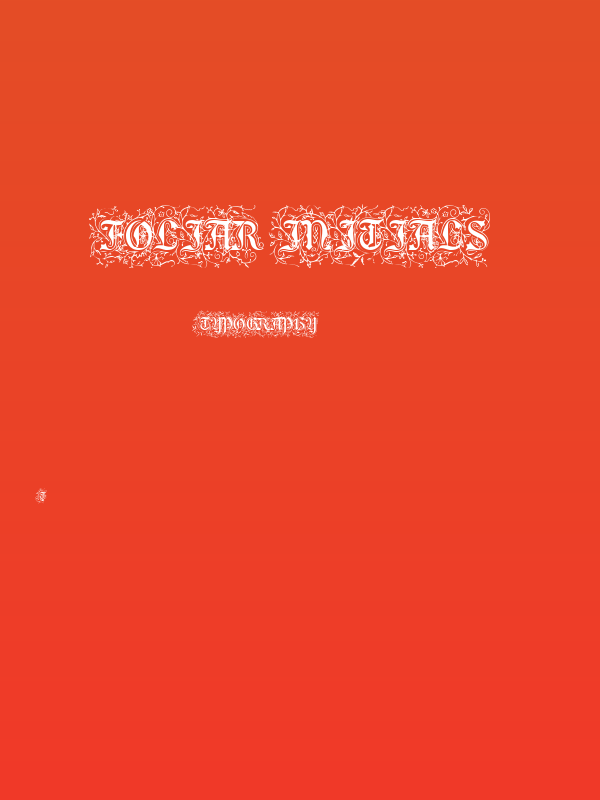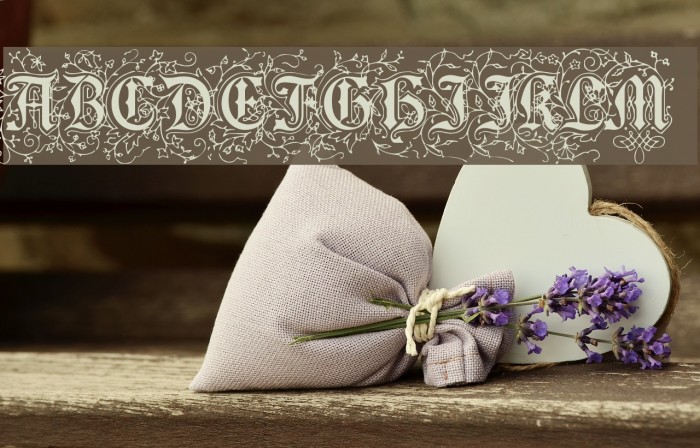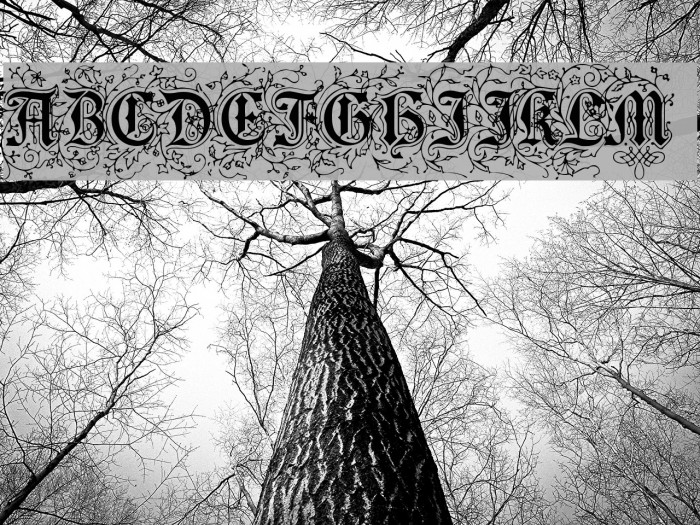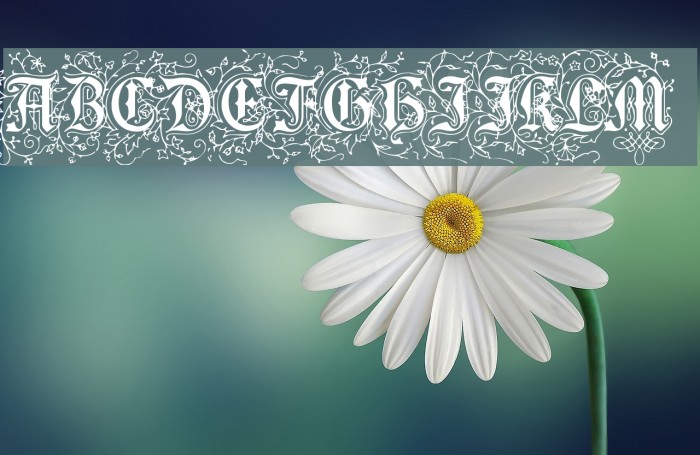
Foliar Initials Font
Foliar Initials Description
This font is an intricate and decorative typeface that features elaborate foliar and vine-like embellishments surrounding each letter. The uppercase characters are designed with a medieval and gothic influence, showcasing ornate details that resemble historical manuscript initials. The intertwining leaves and flourishes add a sense of elegance and complexity, making it suitable for projects that require a touch of sophistication and historical charm. The font's artistic style is reminiscent of illuminated letters found in ancient texts, offering a unique visual appeal.
| Proposed Projects | Ideal for wedding invitations, historical-themed designs, book covers, and decorative posters. |